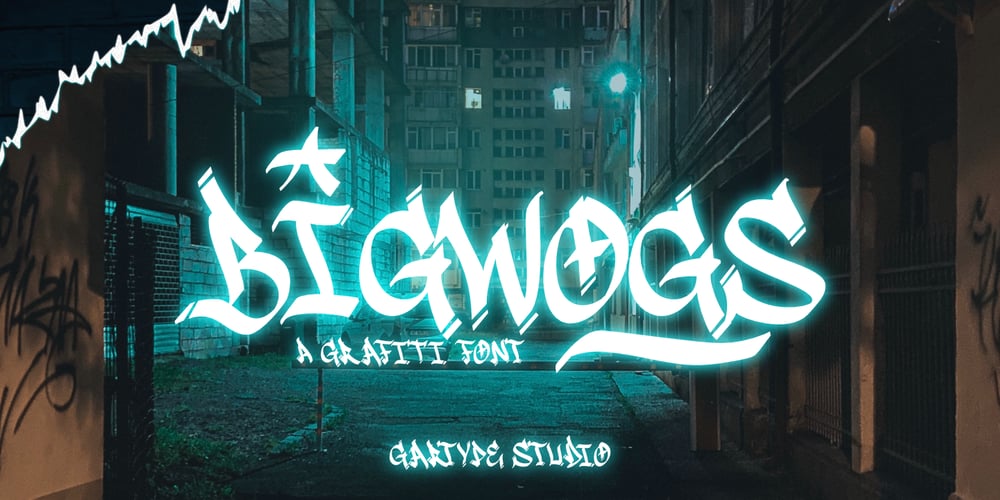
Bigwogs GT
Bigwogs GT font
Bigwogs GT Font Family was designed by Gumilang Anggara Ruslan and published by Gartype Studio. Bigwogs GT contains 2 styles and family package options. Bigwogs is a Street Arts inspiration typeface with a touch of street artistic typeface with graffiti vibes. Bigwogs is an urban inspired typeface from us, that more come with touch of graffiti urban vibes and also comes with multilingual features and extra graffiti swashes to make graffiti vibes.This font look so cool when you using it for projects like text headlines, product packaging, poster, music purpose, game logo title, brands, and mascot logo designs.